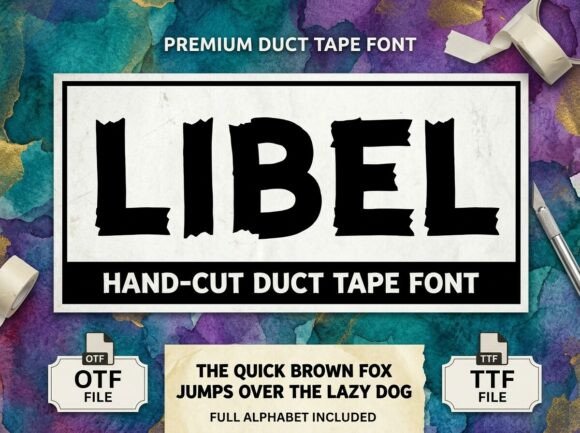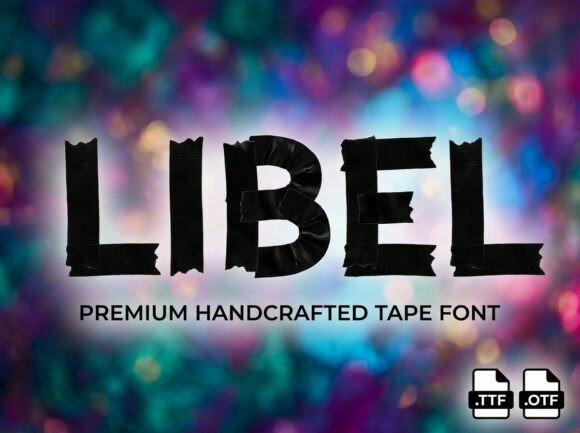
Introduction to Libel Font Font
Fonts play a crucial role in design, and the Libel Font font is a typeface that brings both character and versatility to any project. Whether you’re working on a branding project, a website, or a print design, the Libel Font font offers a unique style that can elevate your work.
βElevate your creative projects with a decorative display font designed to be the centerpiece of any layout.
With its distinct artistic elements and strong character, it is perfect for creators who want to break away from the ordinary From bold headlines to creative branding and packaging delivers a high-end, professional aesthetic without compromising on personality.
Key Features of Libel Font Font
Why Choose Libel Font Font?
The Libel Font font is more than just a typeface β it’s a design tool that helps you communicate your message with style and clarity. Its unique character set and versatile design make it suitable for a wide range of applications, from elegant invitations to bold headlines.
With its carefully crafted letterforms and balanced proportions, the Libel Font font ensures readability and visual appeal across all mediums.
What makes Libel Font font special?
The Libel Font font stands out with its unique design, exceptional readability, and versatility across various design applications.